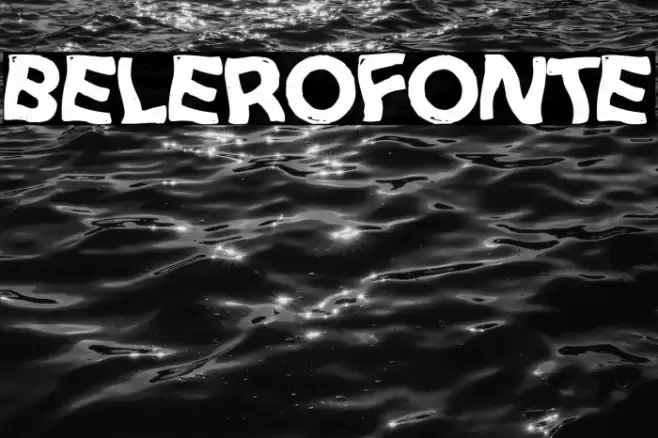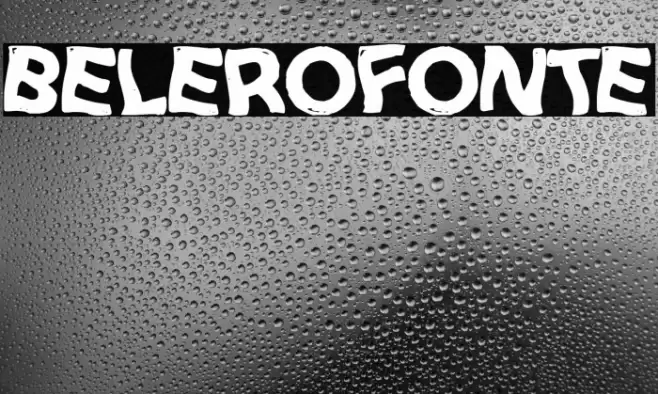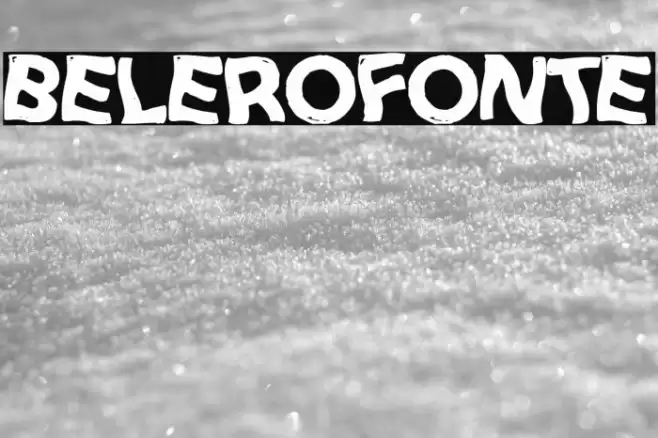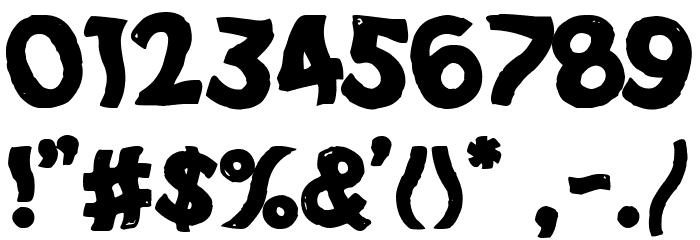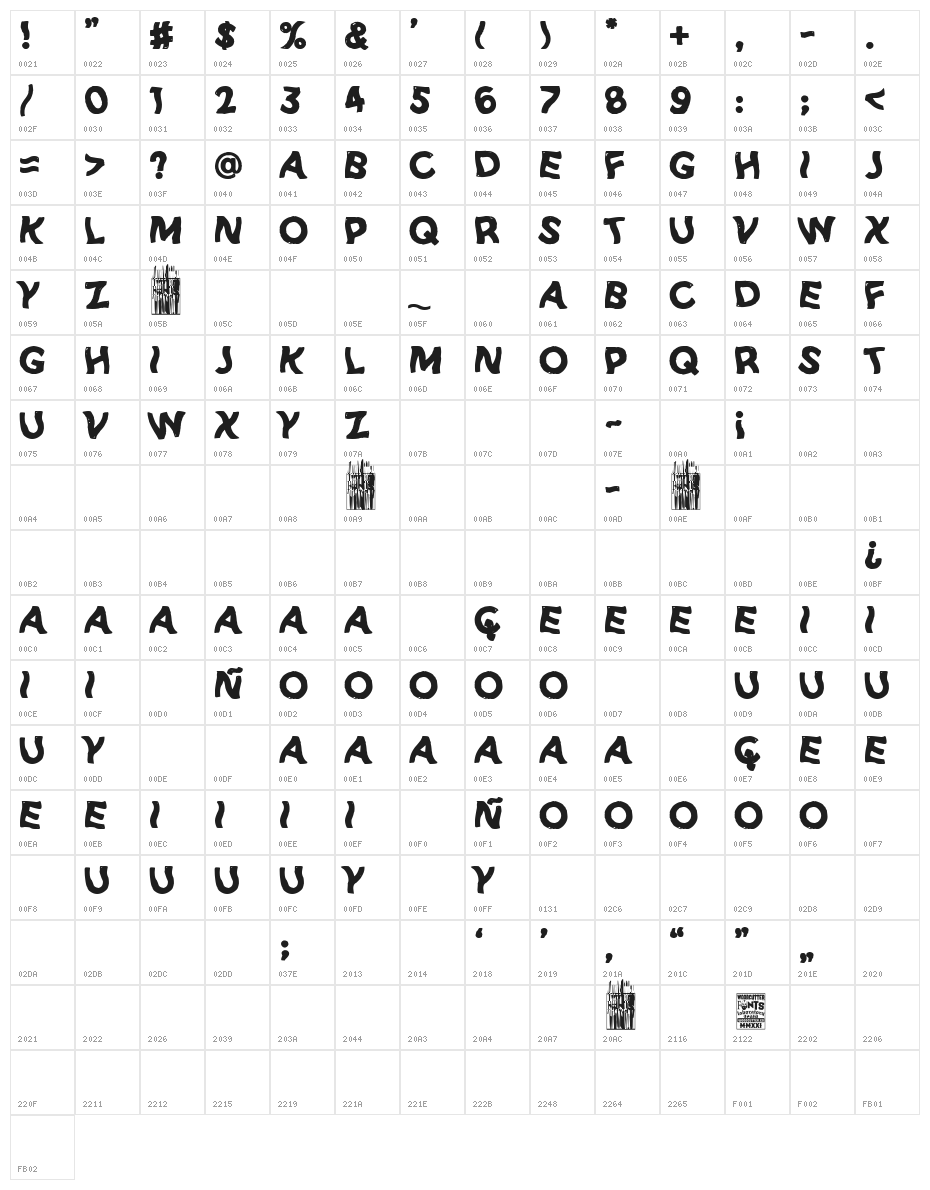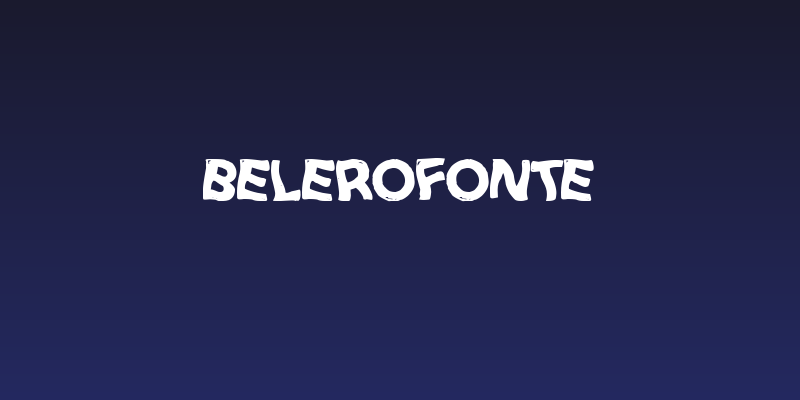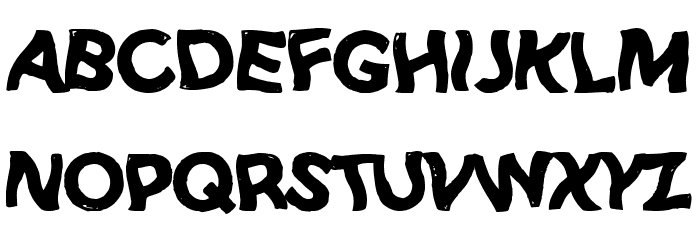
Belerofonte Font
Belerofonte Description
This font features a bold and expressive style with a hand-painted appearance. The characters are thick and slightly irregular, giving them a dynamic and energetic feel. The strokes are broad and uneven, contributing to a sense of movement and spontaneity. This font is highly decorative, with a playful and artistic vibe that makes it stand out. The uppercase and lowercase letters maintain a consistent style, while the numerals and special characters complement the overall aesthetic. The font's unique character makes it suitable for creative and eye-catching designs.
A bold, hand-painted style font with an expressive and dynamic appearance from Kids fonts.
- Font: Belerofonte
- Proposed Projects: Ideal for posters, artistic projects, branding, and any design requiring a bold, creative touch.
- Overall Style: Decorative
- Use Case: Headlines, Posters, Artistic projects